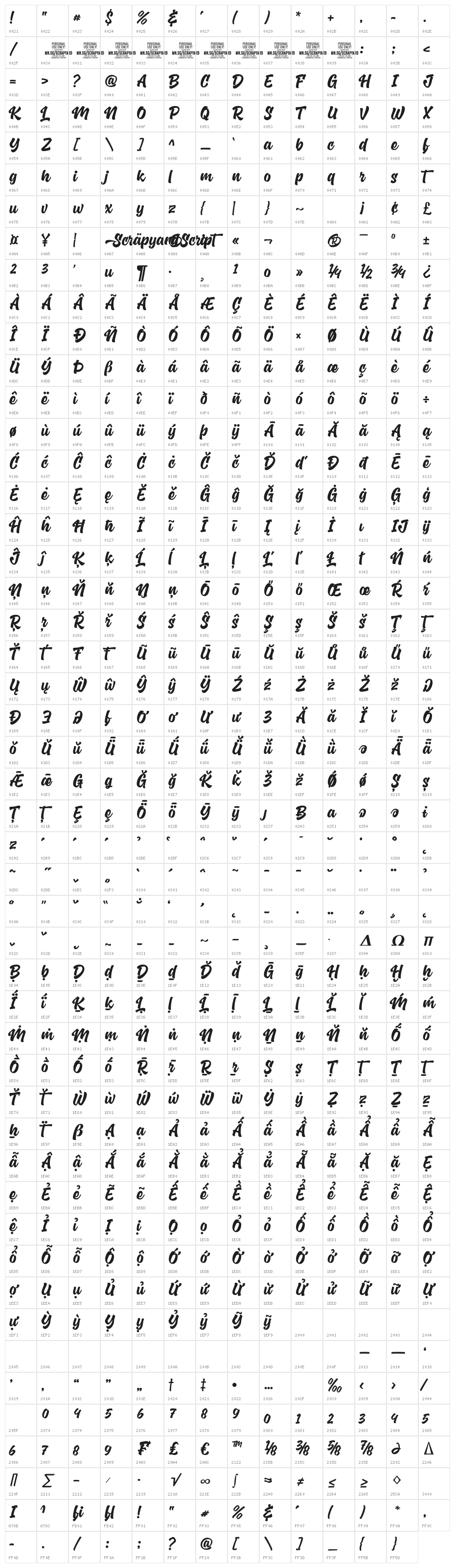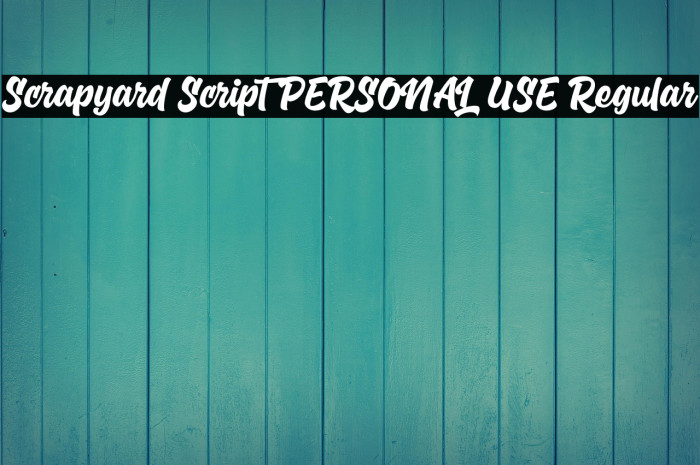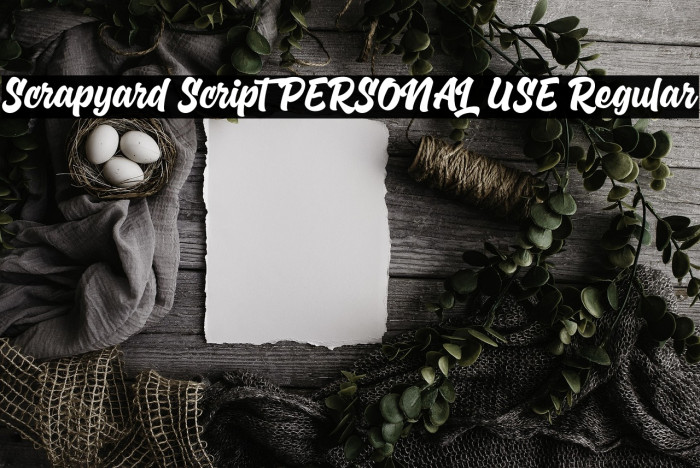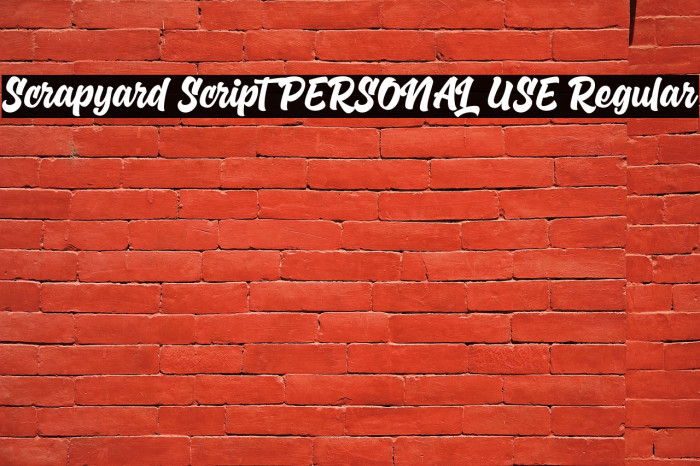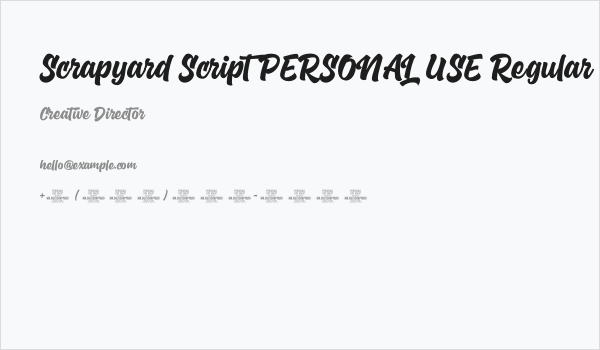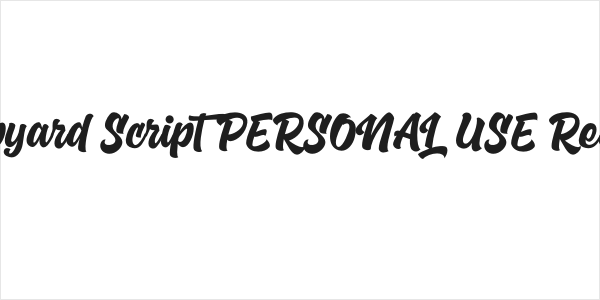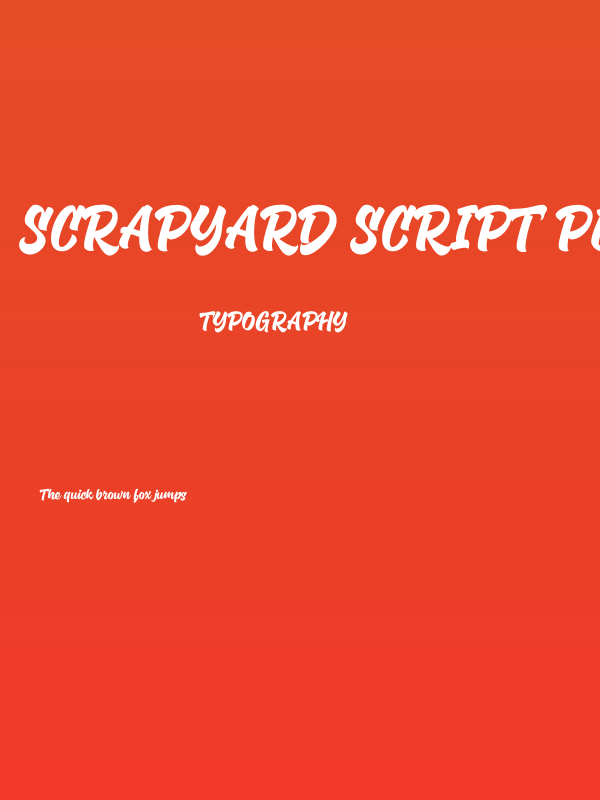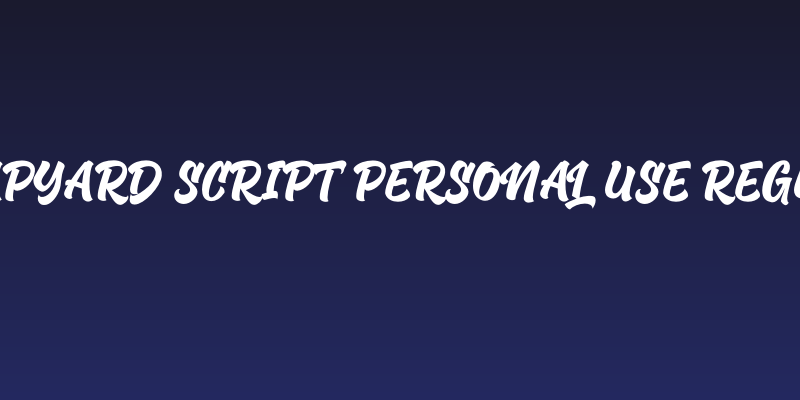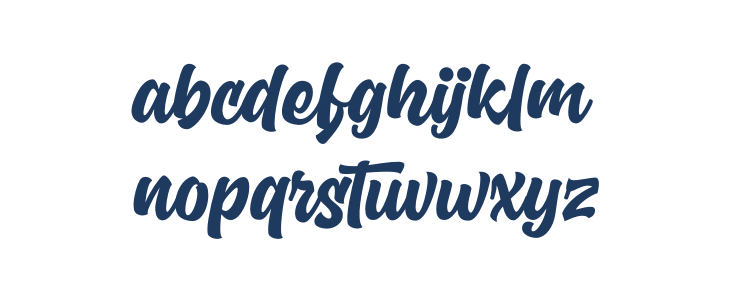
Scrapyard Script PERSONAL USE Regular Font
Scrapyard Script PERSONAL USE Regular Description
This font features a bold, script style with a hand-drawn appearance, characterized by its flowing and connected letterforms. The uppercase letters are dynamic and slightly slanted, giving a sense of movement and energy. The lowercase letters maintain a consistent style, with smooth curves and a playful, informal feel. The numbers and special characters are designed to match the overall aesthetic, ensuring a cohesive look across all elements. This font is ideal for projects that require a personal touch, such as invitations, greeting cards, or branding materials that aim to convey warmth and creativity.